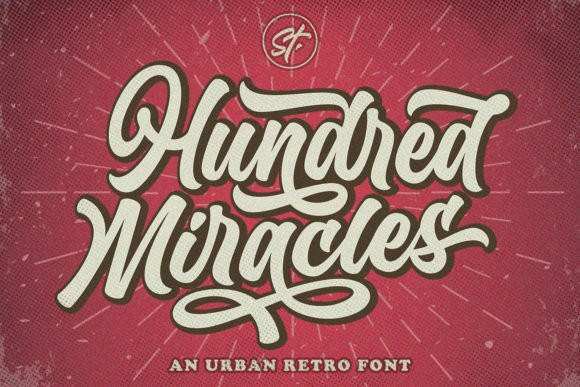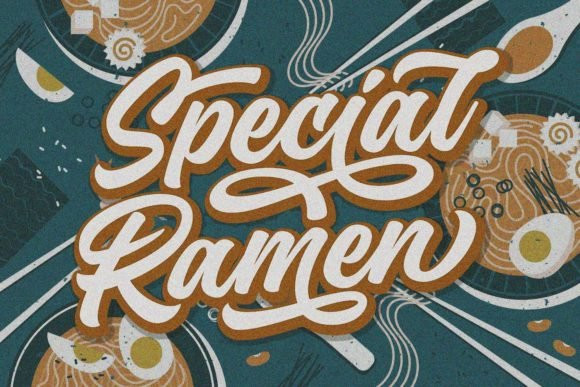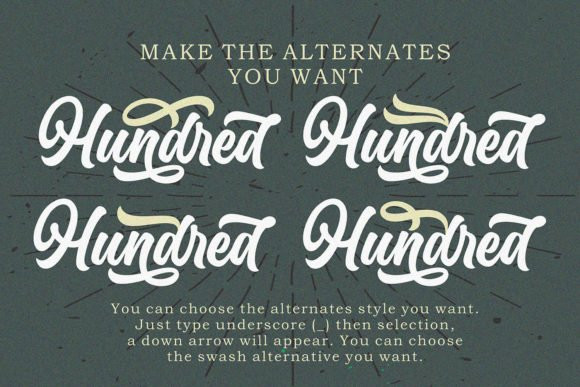
Hundred Miracles Font
Hundred Miracles is an urban retro serif font with an awesome style that can elevate any creation! Use it for branding, apparel designs, watermarks, or others! This font is PUA encoded which means you can access all of the glyphs and swashes with ease!